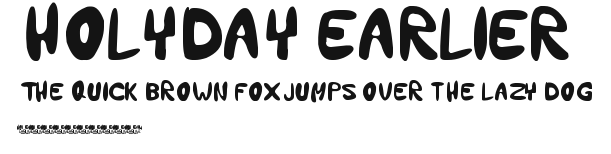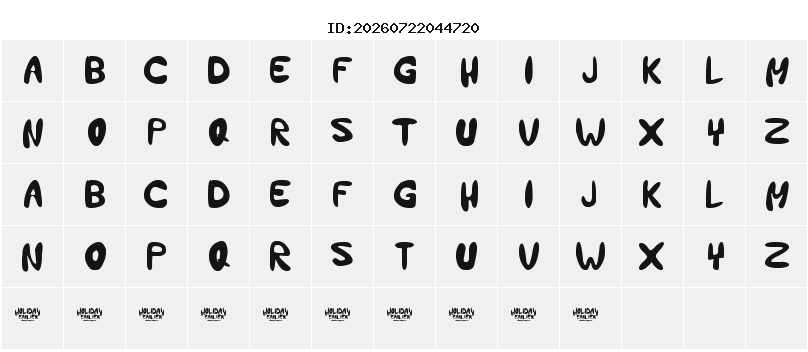
Holyday Earlier Preview
• Font Name: Holyday Earlier
• Font ID: holiday earlier:Version 1.00
• Full Font Name: holiday earlier
• Version: Version 1.00 March 12, 2012, initial release
• PostScript Name: holidayearlier
About Holyday Earlier.ttf
Holyday Earlier.ttf is a modern, elegant sans-serif font designed for ultimate readability and visual harmony. Perfect for branding, headlines, web design, and print materials.